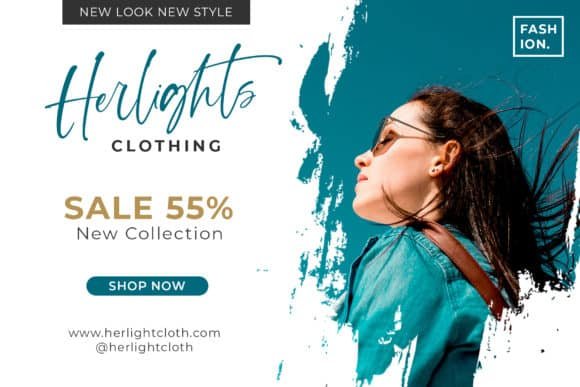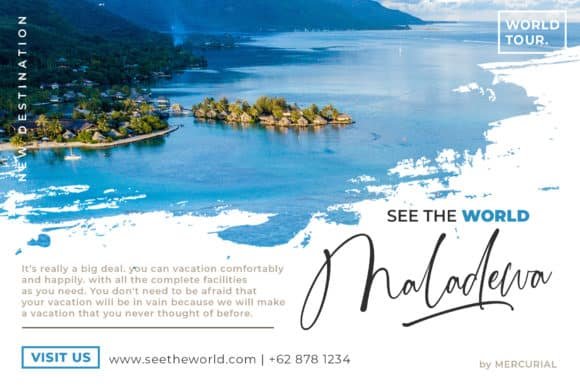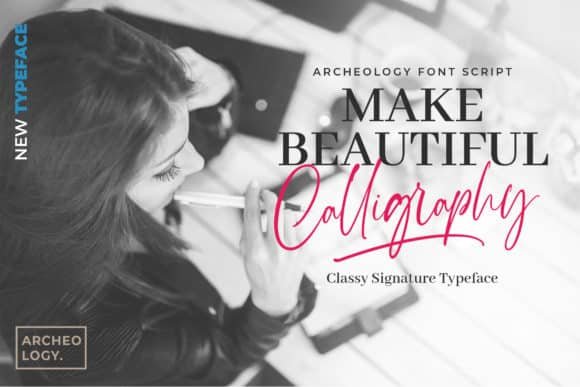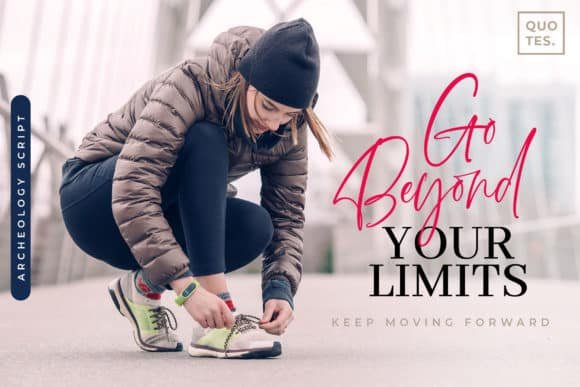
Archeology Font
Mercurial
Archeology is a classy and strong script with a decisive look. It will deliver any message with confidence and style. Add this lovely freebie to your creations and take your designs to the next level!